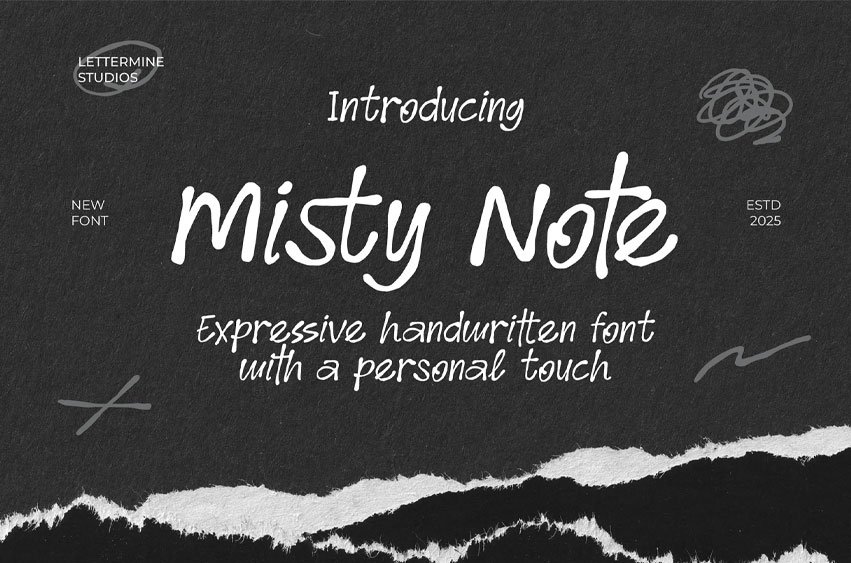
Misty Note Font is a handwritten font that captures the warmth and charm of personal writing. With its fluid strokes and natural rhythm, this font adds an authentic and heartfelt feel to any design. Perfect for quotes, invitations, packaging, and branding, Misty Note brings a casual elegance and human touch to your creative projects.
Infuse your designs with the beauty of handwritten expression and a touch of sincerity.